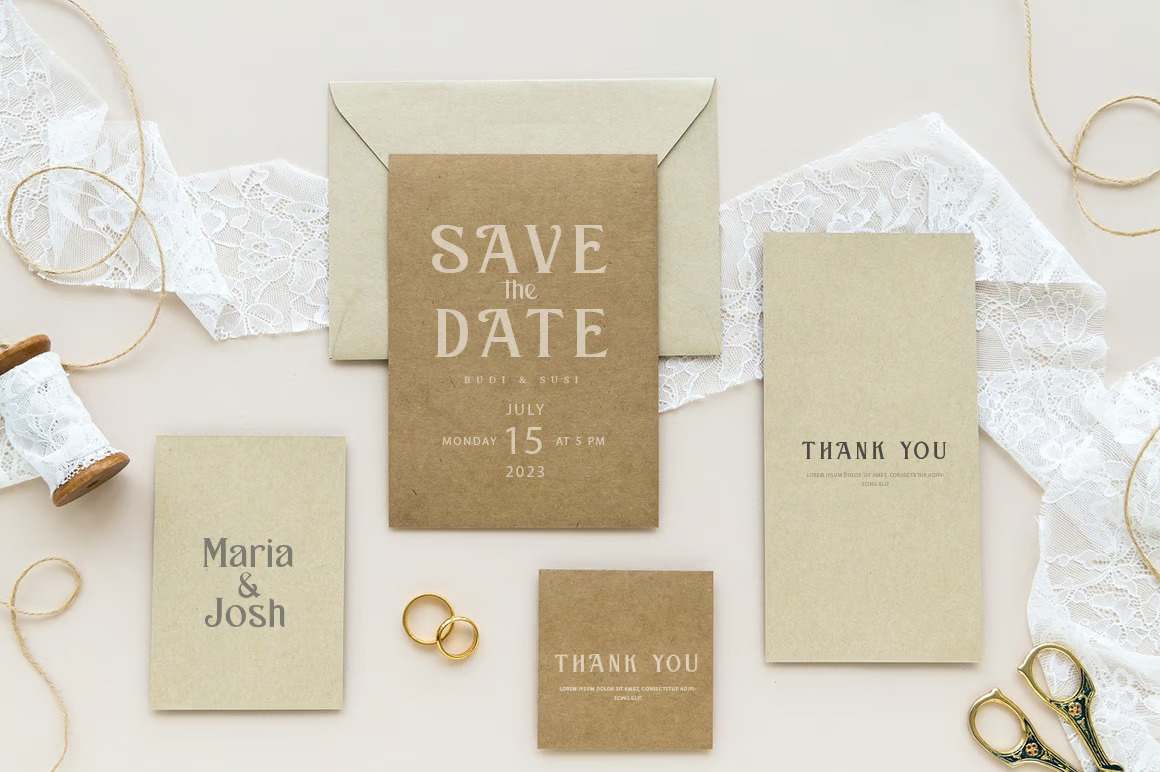
Kastel Voire is a classic display typeface. A minimal contrast look that has been synonymous with fashion for decades. This font is both modern and nostalgic and works great for logos, mastheads and pull quotes. It pairs beautifully with a minimal sans serif or light script font.
It easily cooperating together For Magazine, Movies, or Book Titles. For Photography, Wedding Invitation, Restaurant Menu or T-shirt Design. For Flyers, Banner Ads, web and printing. From Food and Fashion to a Cosmetics product